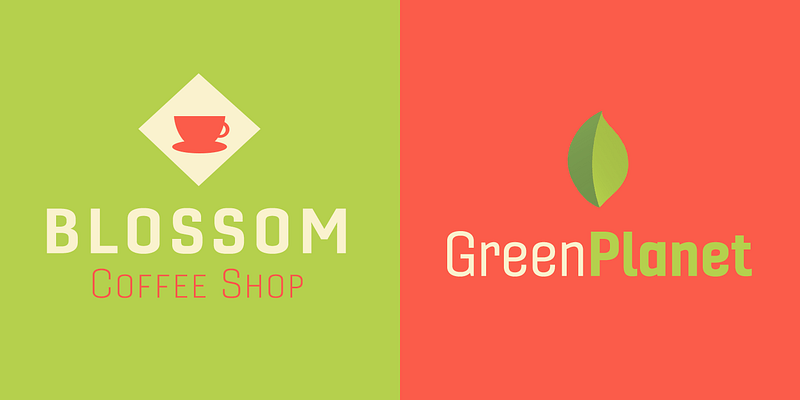
Gineso
Gineso was created for posters, headlines and logotypes. The tight, narrow forms of its geometric design leave you with a robust flavor that will remind you of mamma's spaghetti.